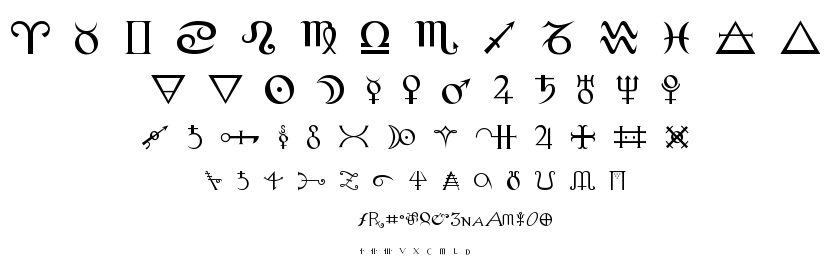
A shareware 7-bit font with a selection of ancient Alchemy symbols. The extended non-shareware set contains elements and other materials such as filter, test tube, bismuth, clay, honey, nitric acid, salt, sand, sugar, etc., some in different variants.